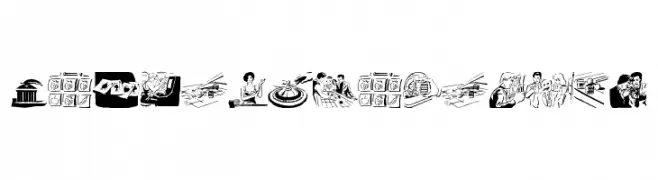
Illustrative display font with scene-based glyphs.
Cartoon-style pictorial font depicting secret agent and surveillance themes.
Hand-sketched, illustrative font with figures in motion.
Ornate silhouette illustrations form each character in a paper-cut style.
Illustrative dingbat font with diverse pictorial scenes and objects.
Comic-style illustrated font with internet and computer themes.
Silhouette pictograms depicting people in diverse actions.
Hand-drawn, museum-themed decorative font with illustrated characters.
A decorative silhouette font with illustrated scenes in square blocks.
Hand-drawn, illustrative font with business-themed character icons.